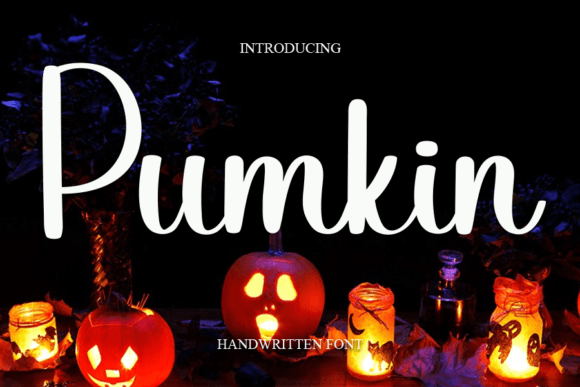
Embrace the charm and charisma of Pumkin Font, a delightful script font that dances across your digital canvas with its playful and amicable personality. A creation of the talented Salma Studio, Pumkin Font is more than just a font; it's an invitation to unleash your creativity and express yourself in a unique and captivating way.
Step into a world of boundless possibilities with Pumkin Font. Whether you're an artist crafting personalized cards, a designer conjuring enchanting digital designs, a business professional crafting captivating presentations, or simply someone seeking a touch of whimsy in their everyday life, Pumkin Font is your perfect companion.
With its effortlessly flowing strokes and charming imperfections, Pumkin Font captivates and engages your audience, leaving a lasting impression that's sure to be remembered. Its endearing nature adds a touch of warmth and approachability, making it an ideal choice for creating connections and building relationships.
As you explore the depths of Pumkin Font's versatility, you'll discover its boundless applications. From eye-catching headlines that demand attention to heartfelt invitations that exude warmth, from whimsical social media posts that spark engagement to stunning product packaging that entices customers, Pumkin Font effortlessly adapts to your creative vision, enhancing your message with its captivating presence.
But what truly sets Pumkin Font apart is its ability to evoke emotions and create a lasting impact. Its playful spirit invites smiles, its friendly demeanor fosters connections, and its charming imperfections add a touch of authenticity and relatability. With Pumkin Font, your creations will not just be seen; they'll be felt, remembered, and cherished.
So, embark on a creative journey with Pumkin Font, your trusted companion in the world of design. Let your imagination soar, let your creativity flow, and let Pumkin Font amplify your message, captivate your audience, and leave an unforgettable impression. Embrace the magic of Pumkin Font today and unlock a world of creative possibilities.